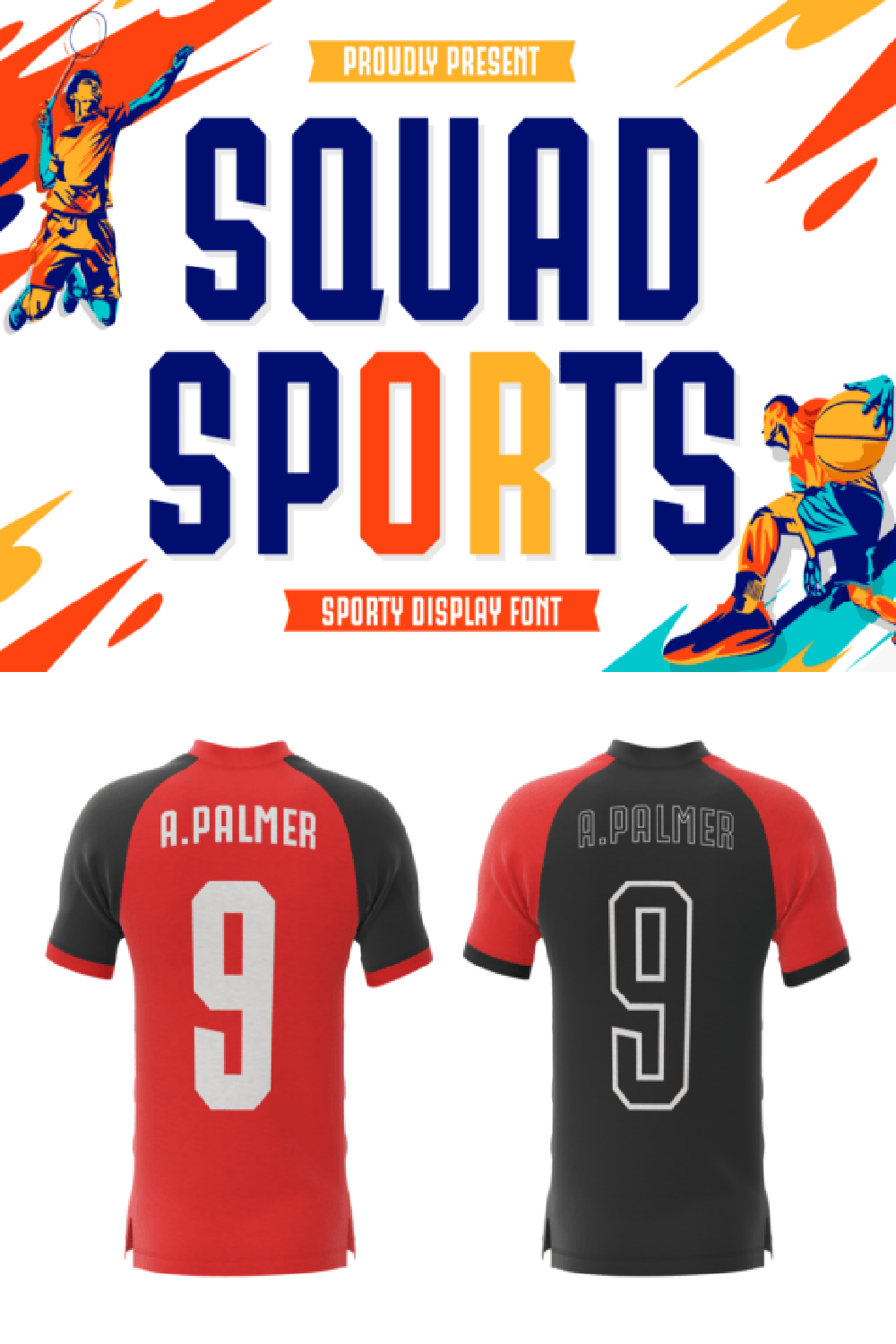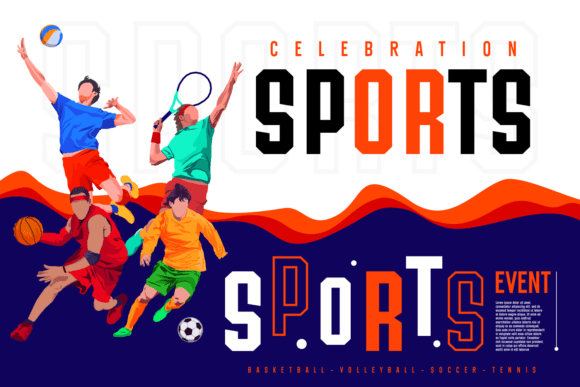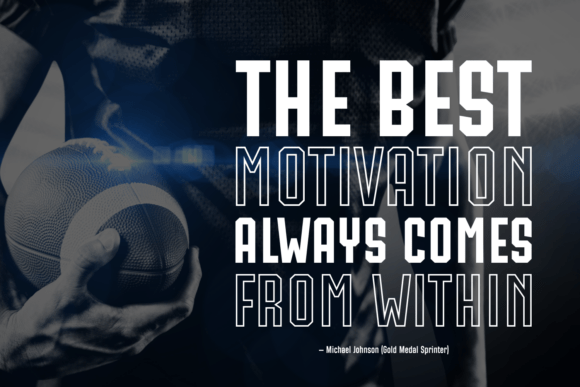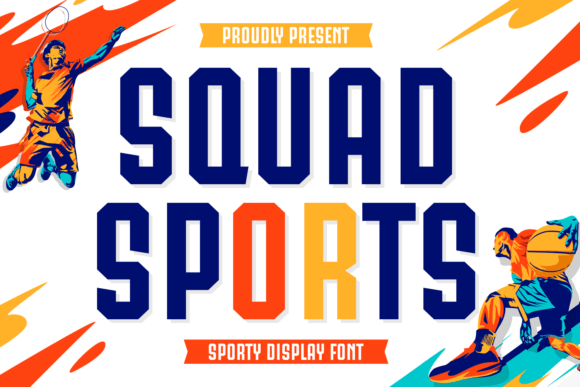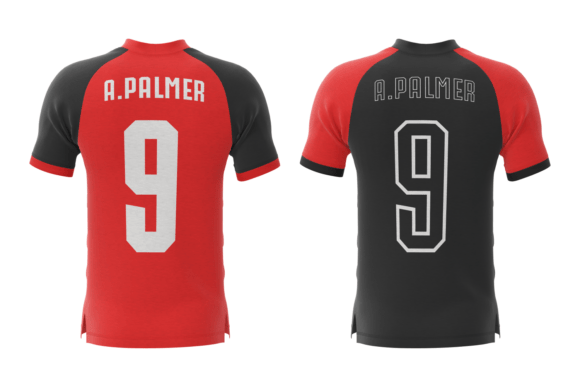
Squad Sports Font
About the Squad Sports Font
Experience the unique personality of Squad Sports Font, a font designed for impact. Introducing “Squad Sports”, a display font that breathes life into your sporty designs. Oozing an athletic vibe, this font is a winning choice for jerseys, gym advertisements, and varsity projects, owing to its varsity and jersey font influences. In all capital letters, it instantaneously commands attention, and with its stylish and fashion-forward design, it leaves an indelible mark that’s hard to overlook.